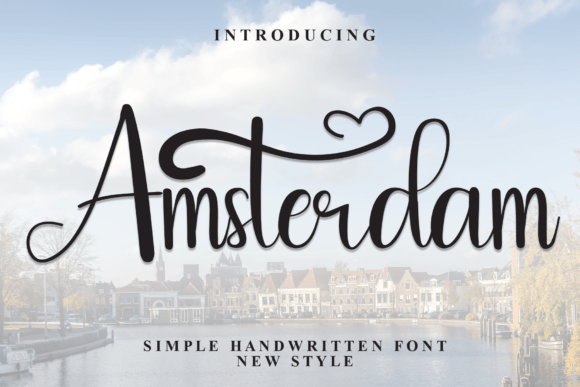
Discover the Delightful Amsterdam Font: Adding Whimsy to Your Designs
A Personal Review: What I Love About Amsterdam Font
Amsterdam Font is a handwriting-styled display font that exudes warmth and playfulness. Here are some things I adore about it:
- ✨ Adorable and engaging style: This font is perfect for adding a dash of whimsy to your designs, making them more captivating and engaging.
- ✅ Perfect for joyful designs: Whether it’s a wedding invitation, a greeting card, or any other project that requires a lighthearted touch, Amsterdam Font fits the bill.
- 🎉 Easy to read: Despite its playful nature, the font remains clear and easy to read, making it versatile for various design applications.
While Amsterdam Font is delightful, there are a few minor quirks to be aware of:
- 🤔 Limited use in formal designs: Due to its playful nature, this font might not be suitable for formal or professional projects that require a more serious tone.
- ⚠️ Glyph limitations: Some users have reported that the font could benefit from a wider range of glyphs, especially for non-English languages.
Amsterdam Font comes with a range of OpenType features and glyphs that can enhance your designs. Here are some tips on how to access them:
Amsterdam Font was created with the intention of capturing the carefree spirit of handwritten fonts. The designer aimed to create a typeface that felt both approachable and delightful, perfect for projects that require a personal touch. Inspired by the charming streets of Amsterdam, this font embodies the city’s friendly and welcoming aura.
Amsterdam Font is more than just a typeface; it’s a way to add a dash of joy and whimsy to your designs. Whether you’re working on wedding invitations, greeting cards, or any project that needs a playful touch, this font is sure to captivate and engage your audience. With its adorable and engaging style, Amsterdam Font breathes life into your creative projects, injecting them with infectious positivity and charm. So, why settle for ordinary when you can make your designs extraordinary with Amsterdam Font?